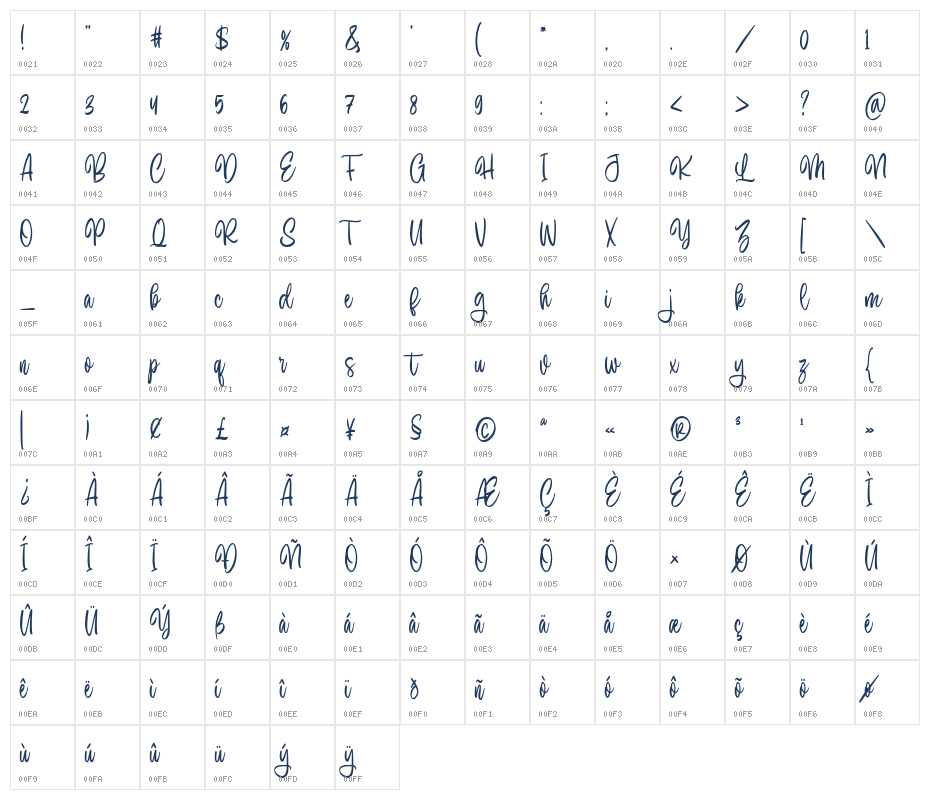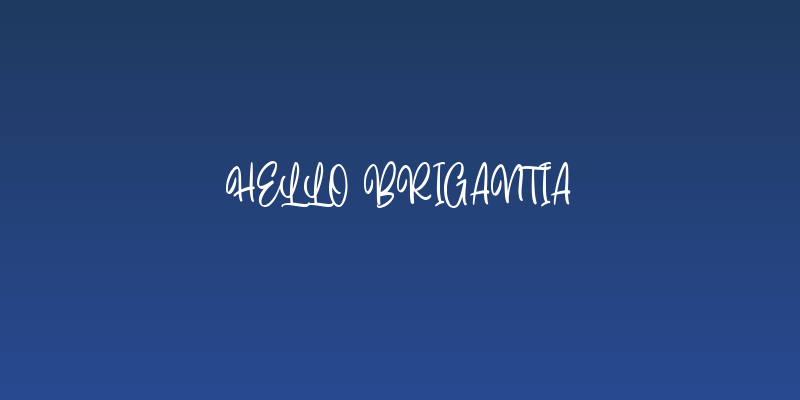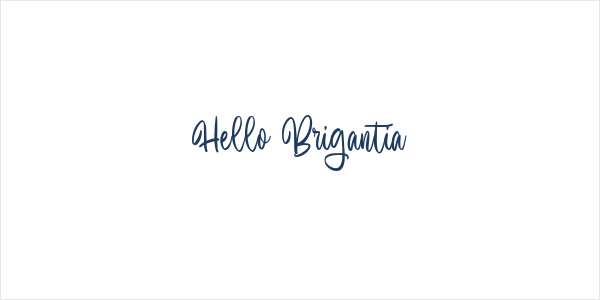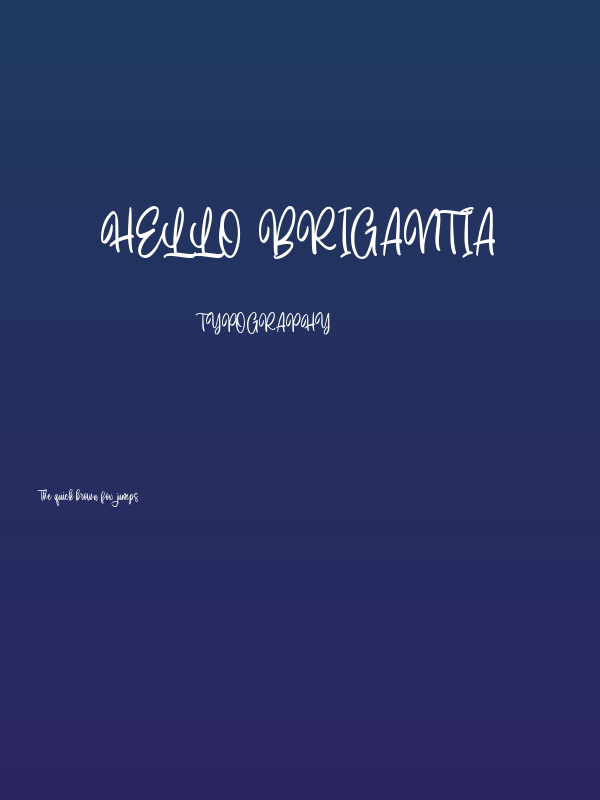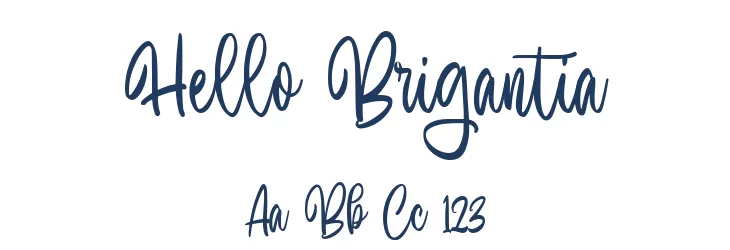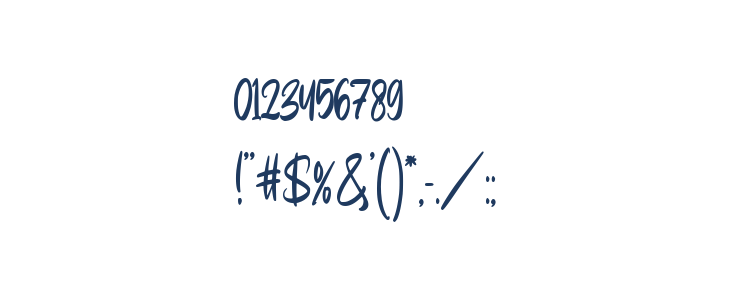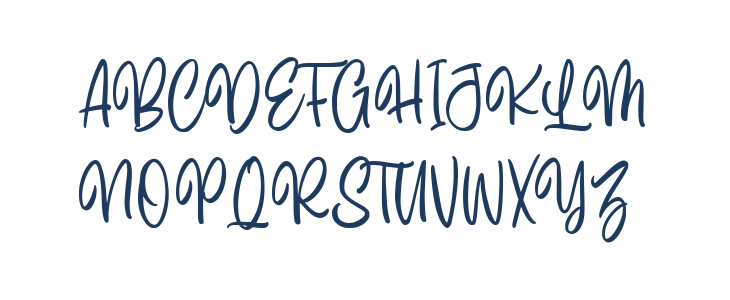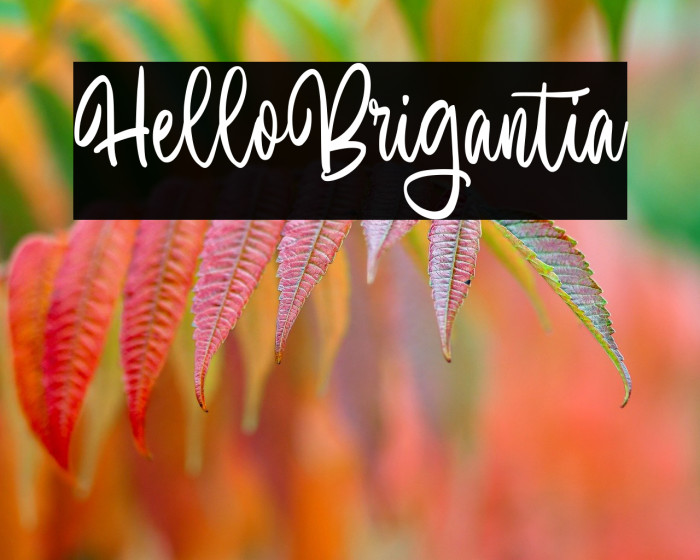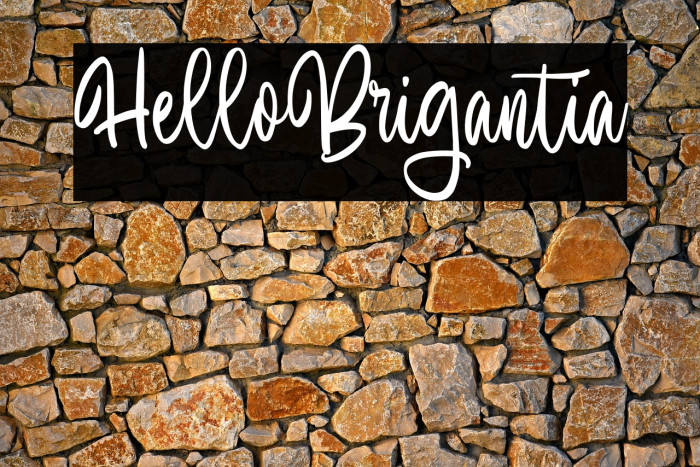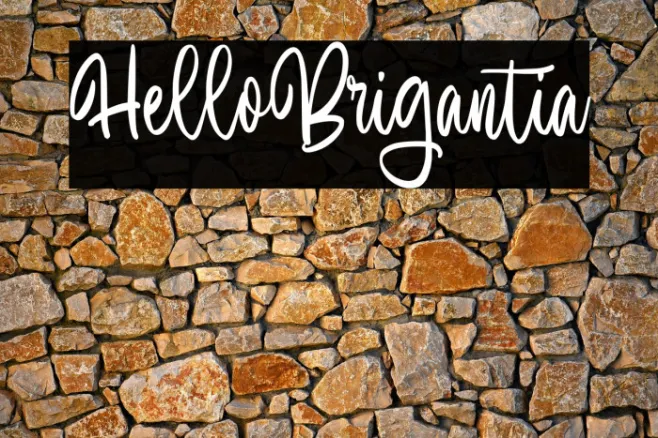
Hello Brigantia Font
Hello Brigantia Description
A casual, handwritten script font with a playful and friendly appearance, featuring smooth, flowing lines and a slightly irregular stroke width.
Hello Brigantia
| Overall Style | Casual, Friendly, Handwritten |
| Use Case | Headlines, Personal projects, Social media, Invitations |